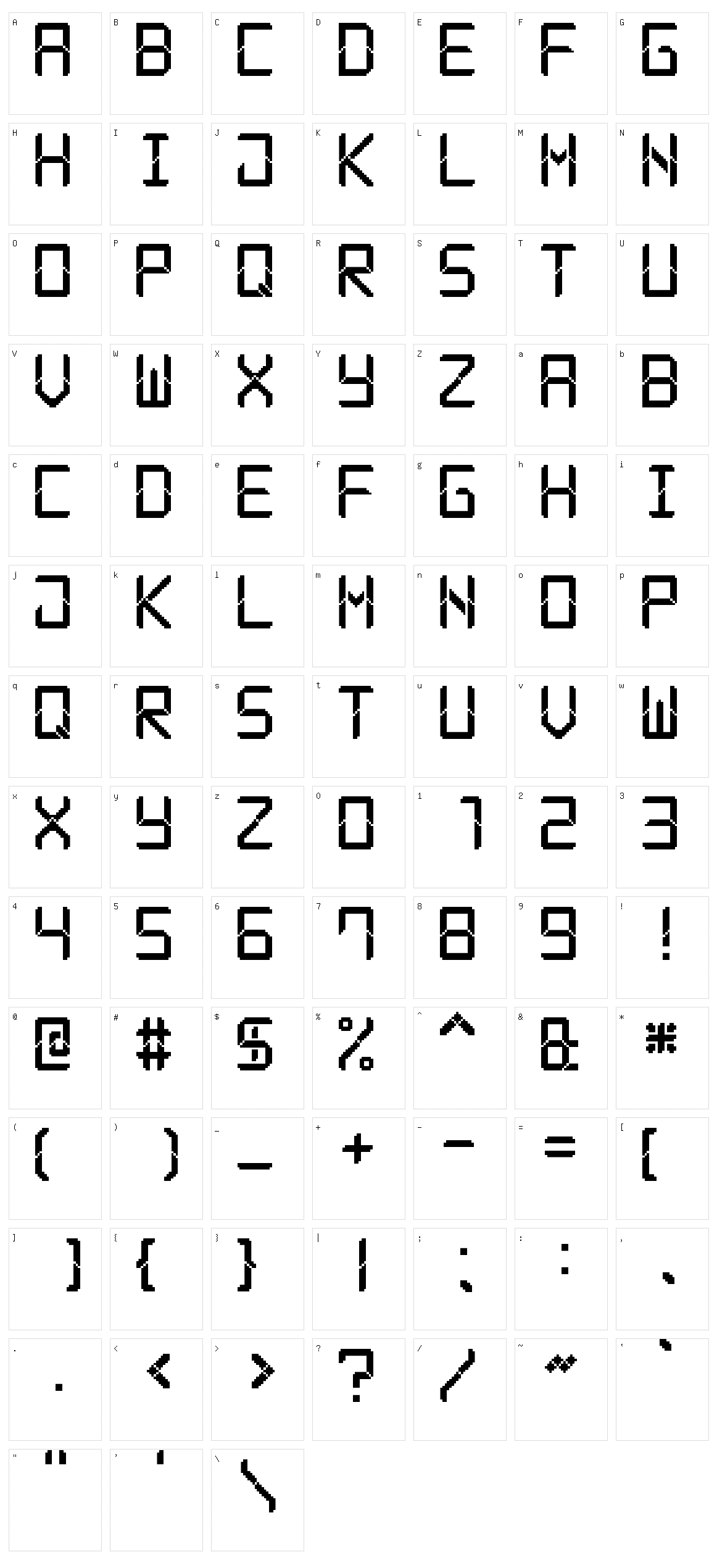
Modern LCD-7
Designed by: Style-7
Original LCD font like seven-segment clock faces. Native size is 15 points. Only Cyrillic code page is supported.
Modern LCD-7 Character Set